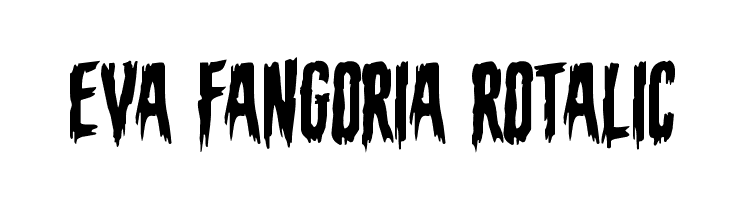
A bold, jagged font with a horror-themed, distressed style.
A bold, jagged font with a horror-inspired, dramatic style.
A bold, jagged font with a horror-themed, torn appearance.
A bold, jagged font with a horror-themed, edgy design.
A jagged, horror-themed font with a distressed, dripping effect.
A bold, jagged, and italic font with a dynamic, edgy appearance.
A bold, jagged font with a horror-themed, torn appearance.
A bold, jagged, and italicized font with a fierce and dynamic style.
A bold, jagged font with a horror-inspired, dripping effect.
A bold, jagged, and dynamic font with a warped, italic style.